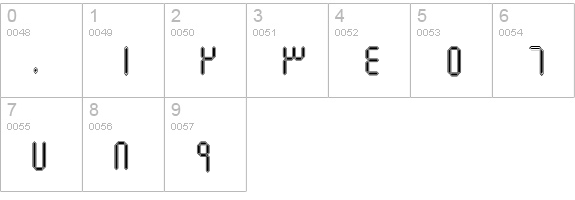
B Elm Border Font Details
B Elm Border font is a unique and elegant typeface that adds a touch of sophistication to any design. With its intricate border details and delicate curves, this font is perfect for creating eye-catching headlines, invitations, or decorative elements. The versatile nature of B Elm Border font makes it suitable for a wide range of projects, from branding to packaging to social media graphics. And the best part? B Elm Border font is completely free to download at FontsMarket.com. This means you can enhance your designs with this beautiful font without breaking the bank. Don't miss out on the opportunity to add a touch of class to your projects with B Elm Border font - download it today and elevate your design game!